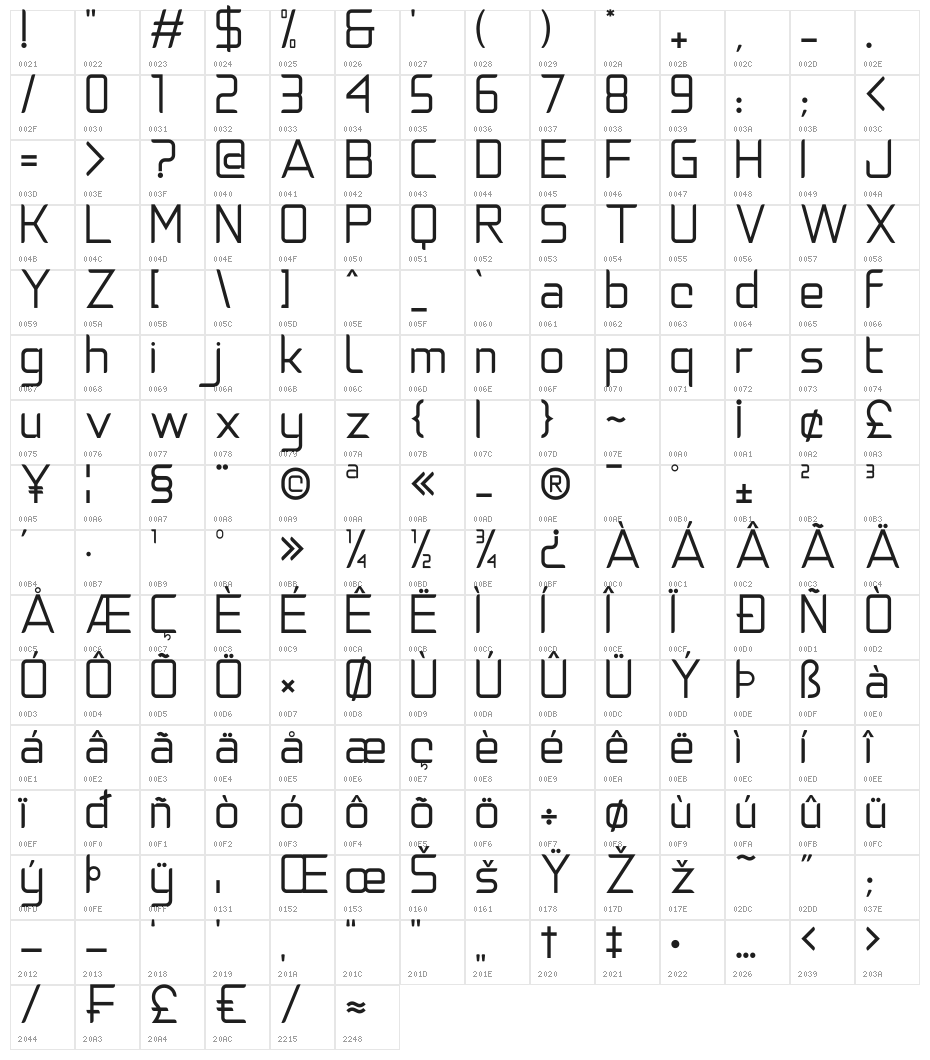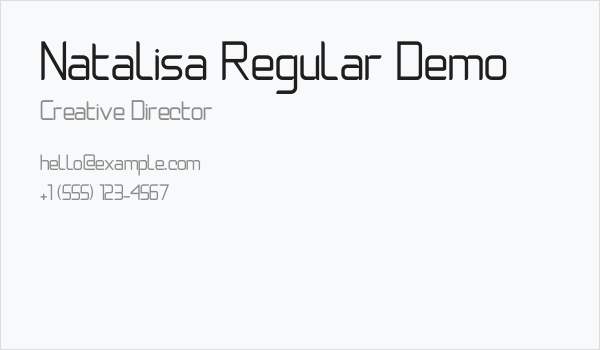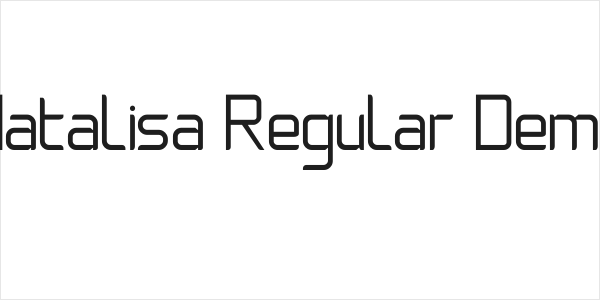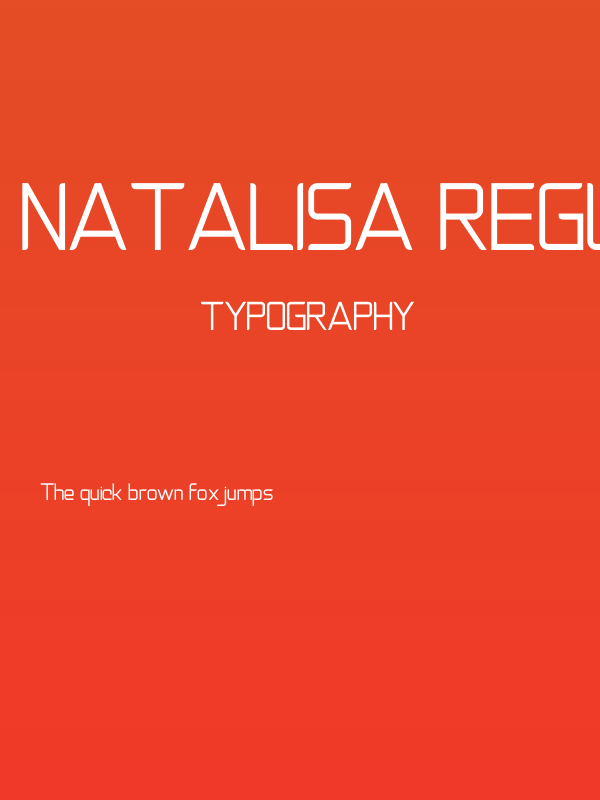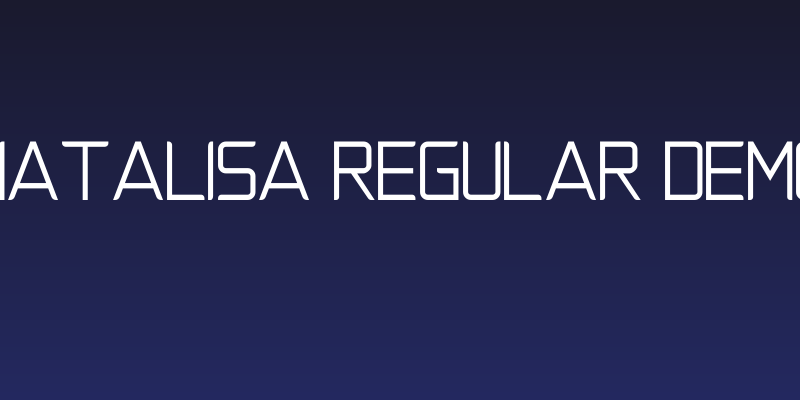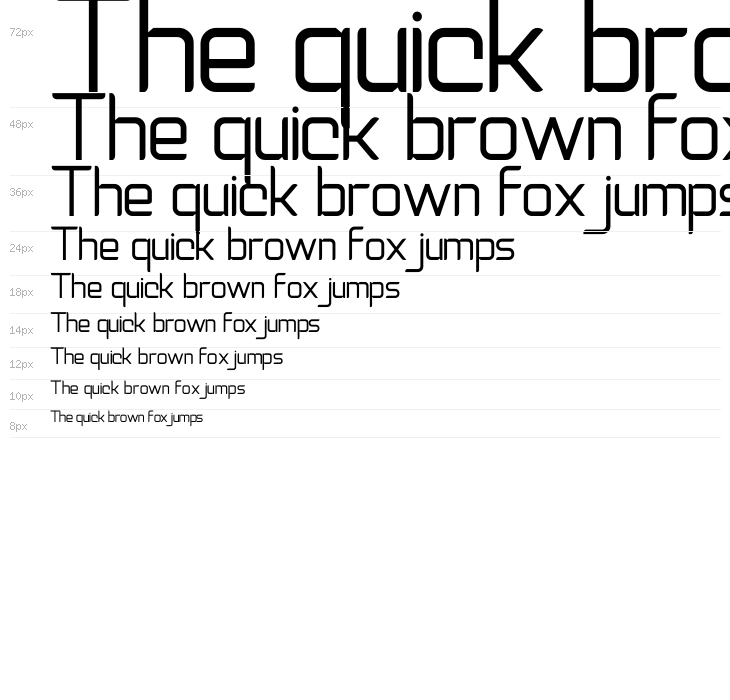
Natalisa Regular Demo Font
Natalisa Regular Demo Description
This font features a modern, geometric design with clean lines and a structured appearance. The characters are uniform in width, giving it a monospaced feel, though it maintains a sense of elegance and readability. The uppercase letters are bold and prominent, while the lowercase letters retain a consistent height, contributing to its sleek and contemporary style. The numerals and special characters are crafted with the same attention to detail, ensuring a cohesive look across all elements. Its minimalistic design makes it suitable for various applications where clarity and precision are essential.
Natalisa
| Use Case | Headlines, Logos, Digital Interfaces |
| Proposed Projects | Ideal for tech branding, digital interfaces, modern advertising, and minimalist design projects. |